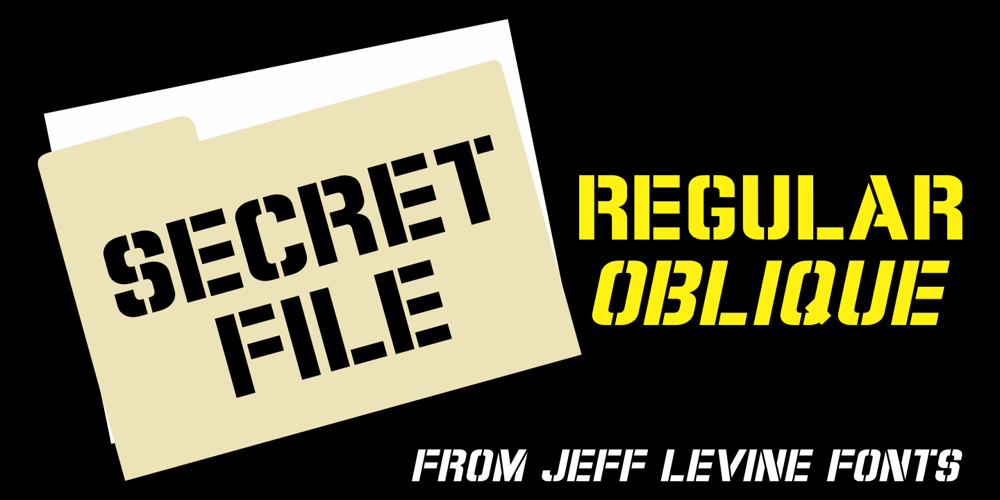
Secret File JNL
Secret File JNL font
Secret File JNL Font Family was designed by Jeff Levine and published by Jeff Levine. Secret File JNL contains 2 styles and family package options. The stenciled hand lettering in the credits for the 1965 Michael Caine spy thriller “The Ipcress File” inspired Secret File JNL, which is available in both regular and oblique versions.